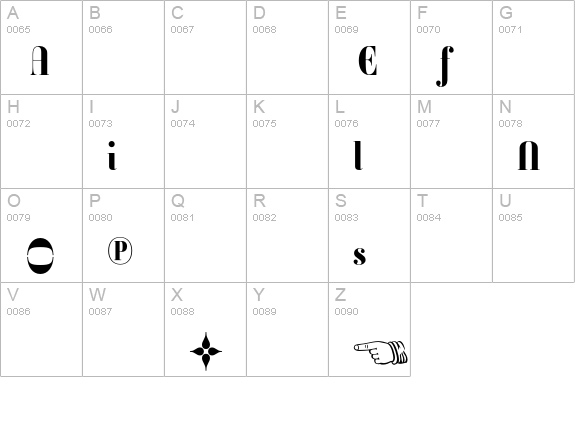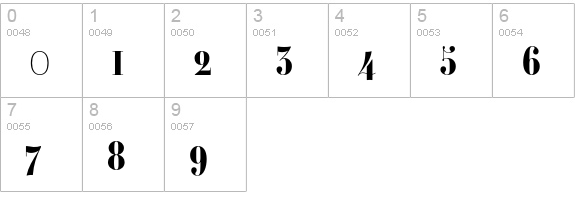
Ambroise Firmin Alternates Bold Font Details
Ambroise Firmin Alternates Bold is a strong, high-contrast variant in the Ambroise typeface family \xE2\x80\x94 well suited to headlines, attention-grabbing titles, and strong calls-to-action.
Ambroise Firmin Alternates Bold font is a striking and bold typeface that exudes confidence and elegance. Its strong, clean lines and distinctive letterforms make it perfect for headlines, posters, and bold statements. The font's alternate characters add a unique twist, giving your designs a touch of individuality and style. What sets Ambroise Firmin Alternates Bold font apart is that it is not only visually appealing but also free to download. This means you can enhance your projects with this eye-catching font without breaking the bank. Simply head over to FontsMarket.com to get your hands on this versatile typeface and elevate your designs with its bold presence.